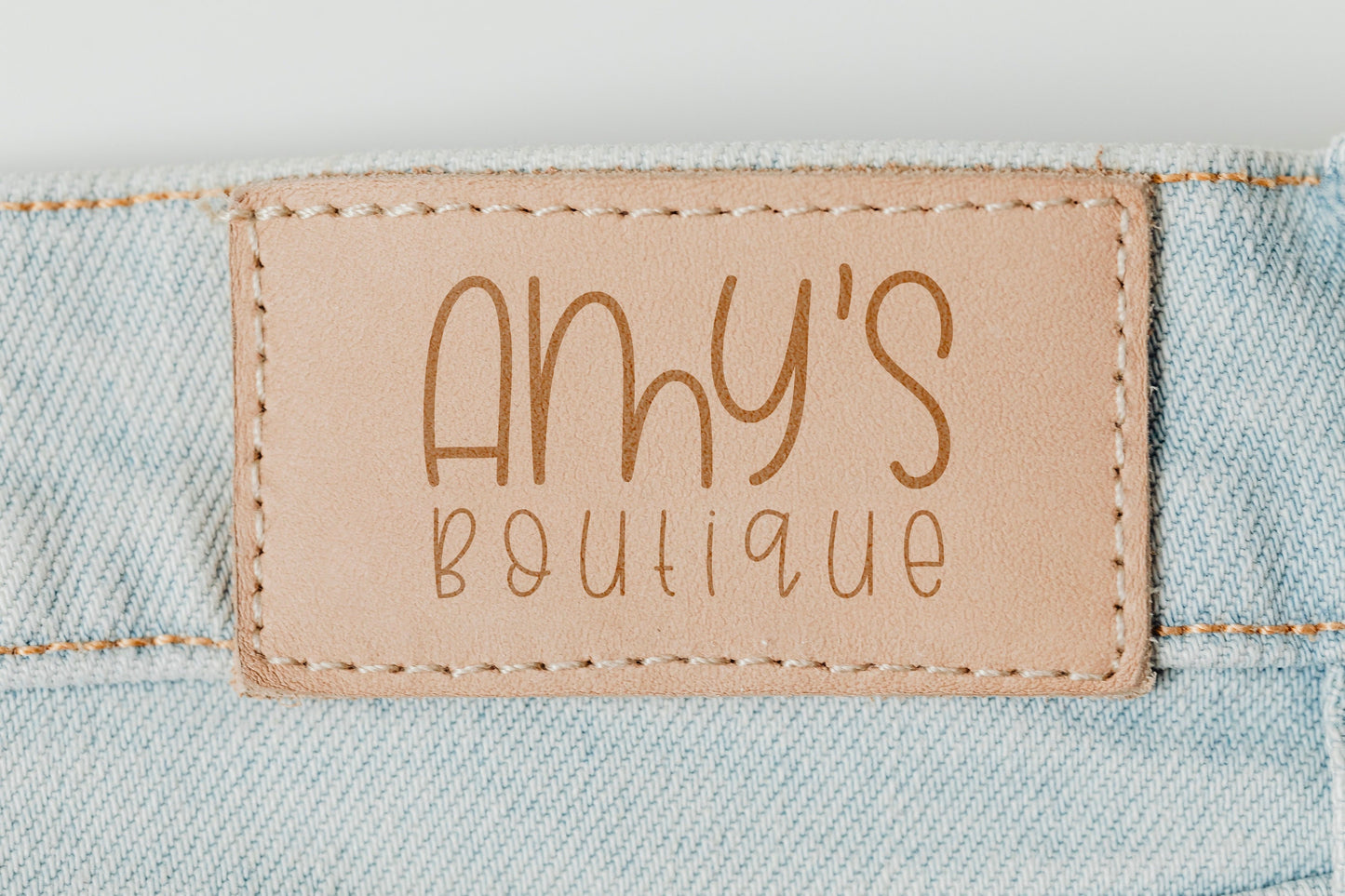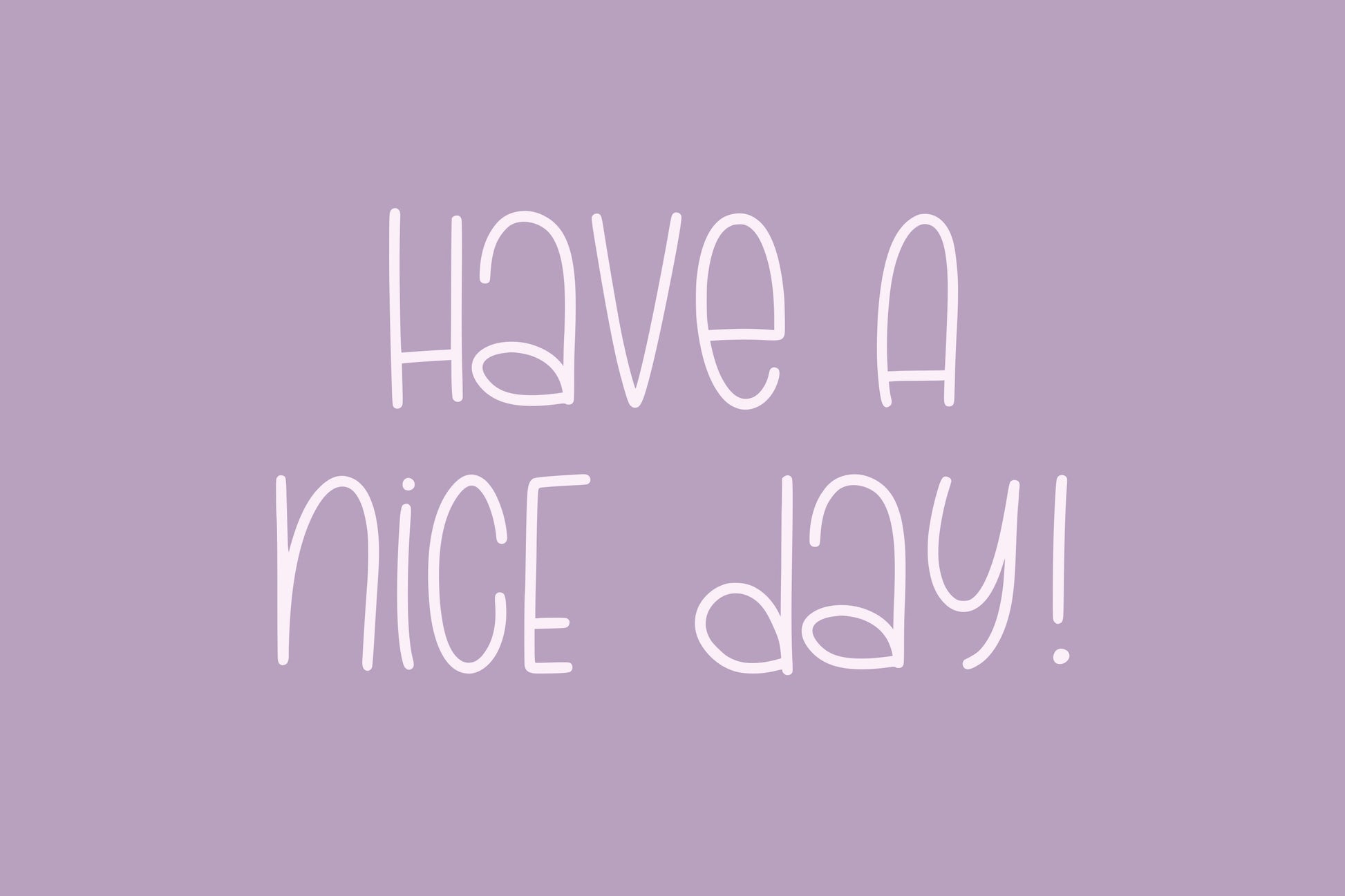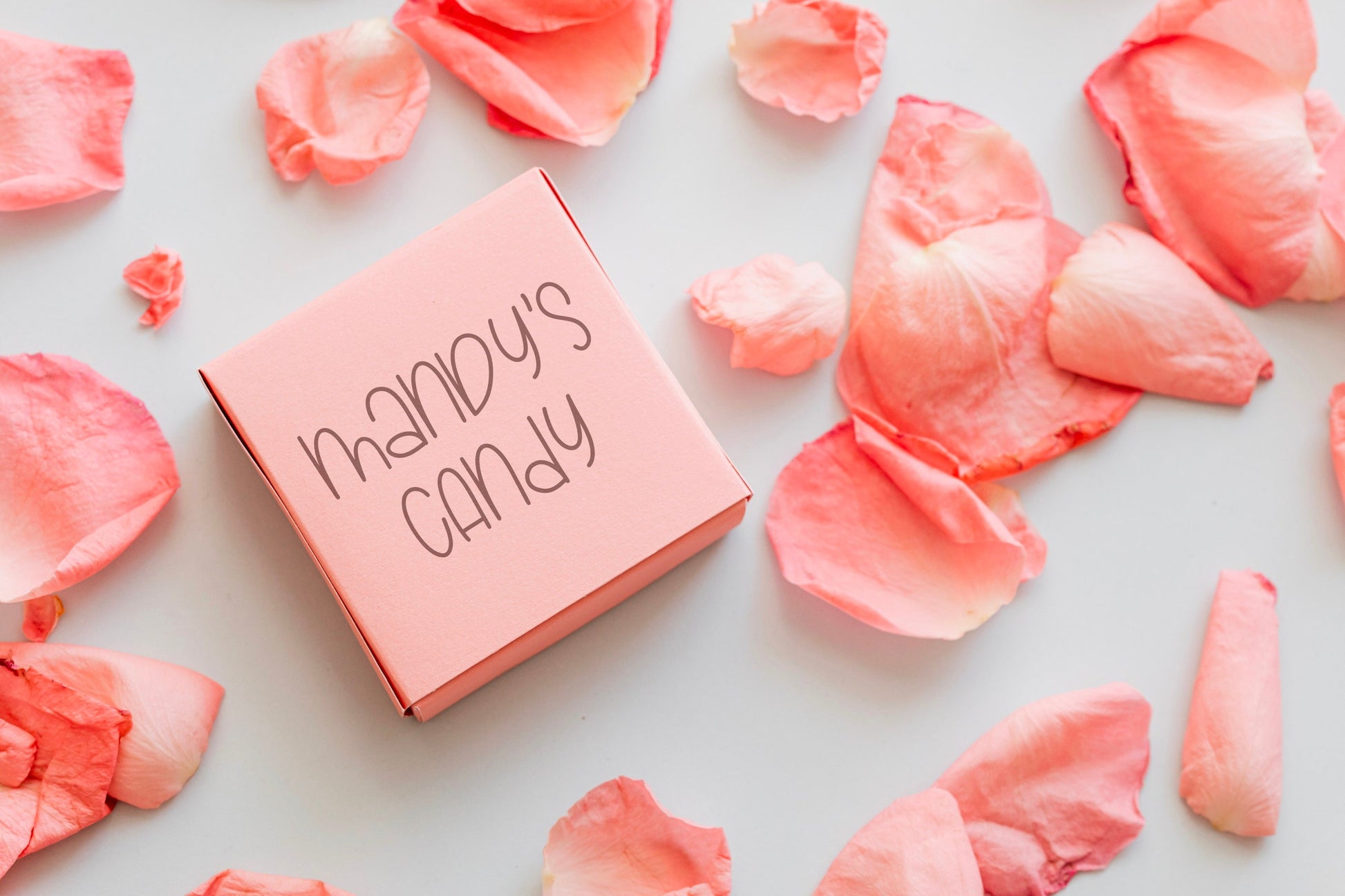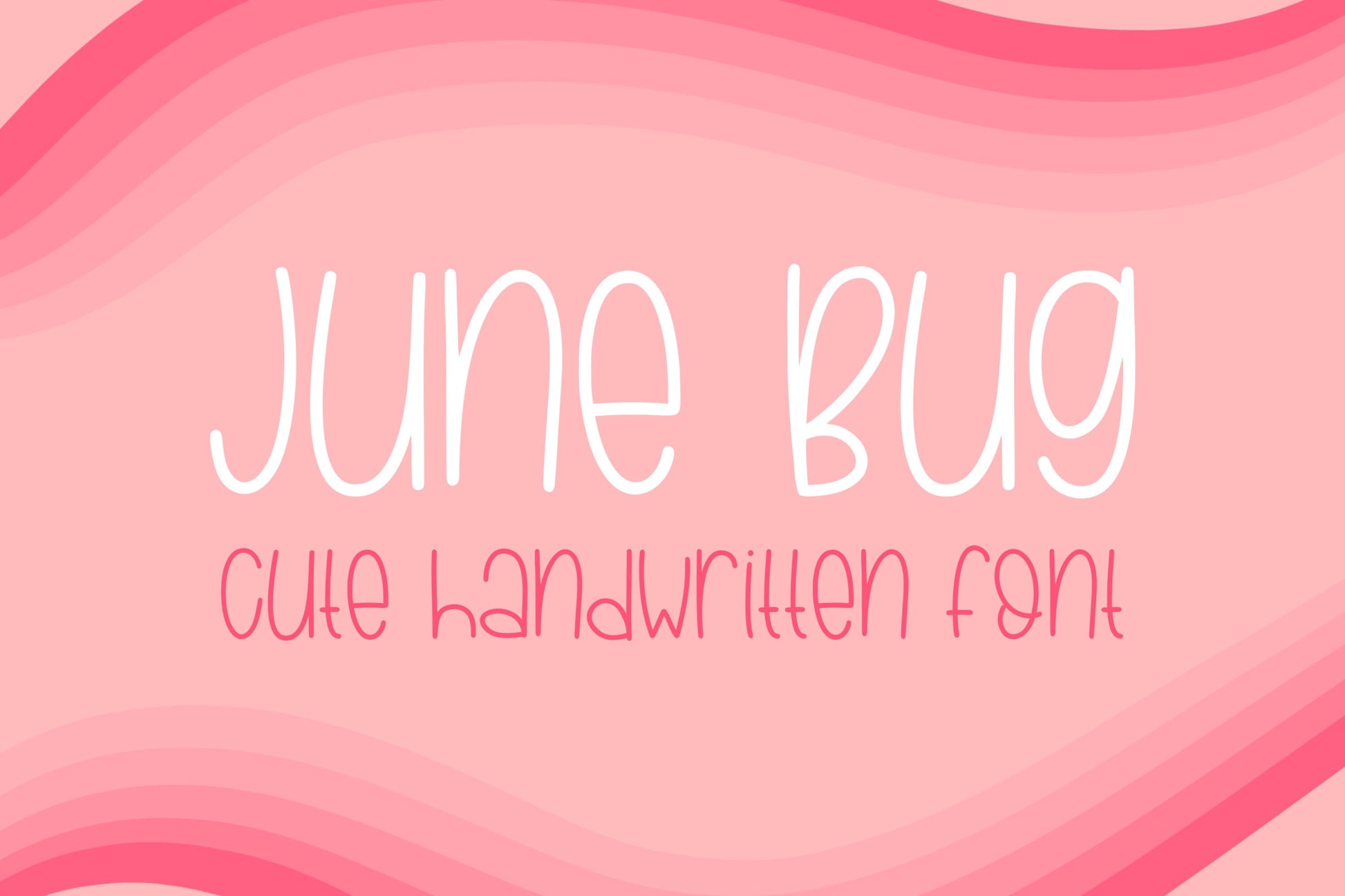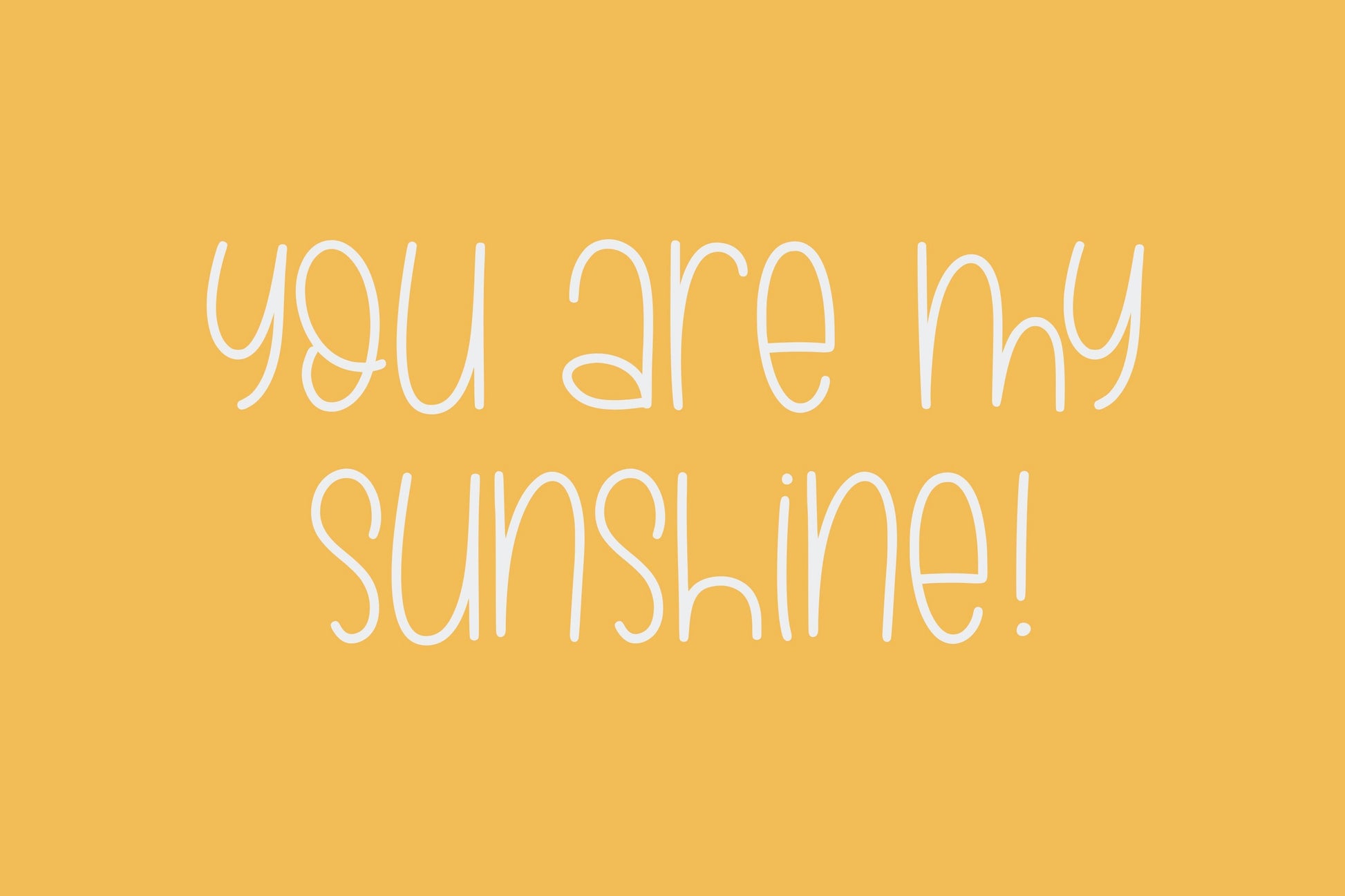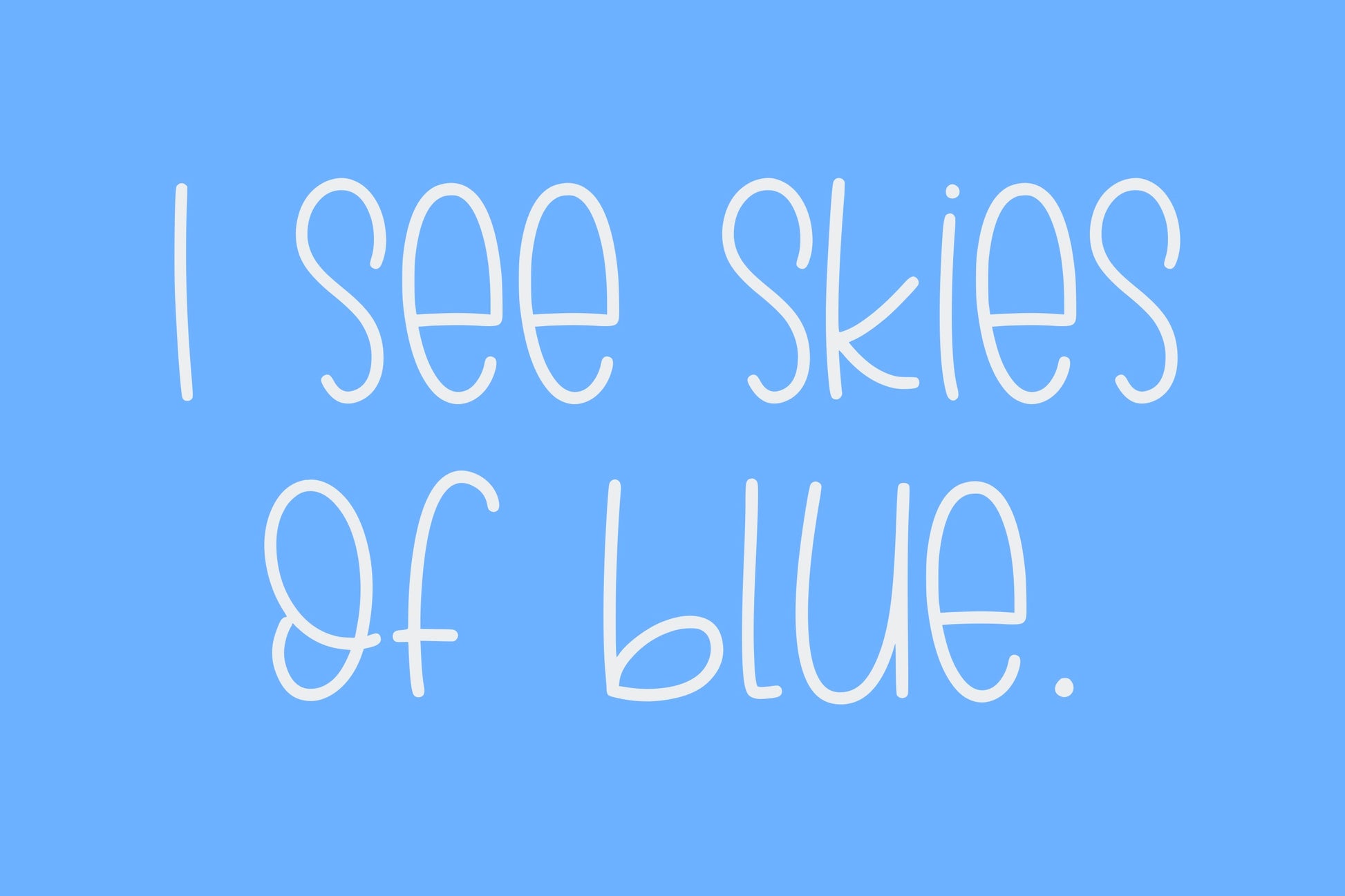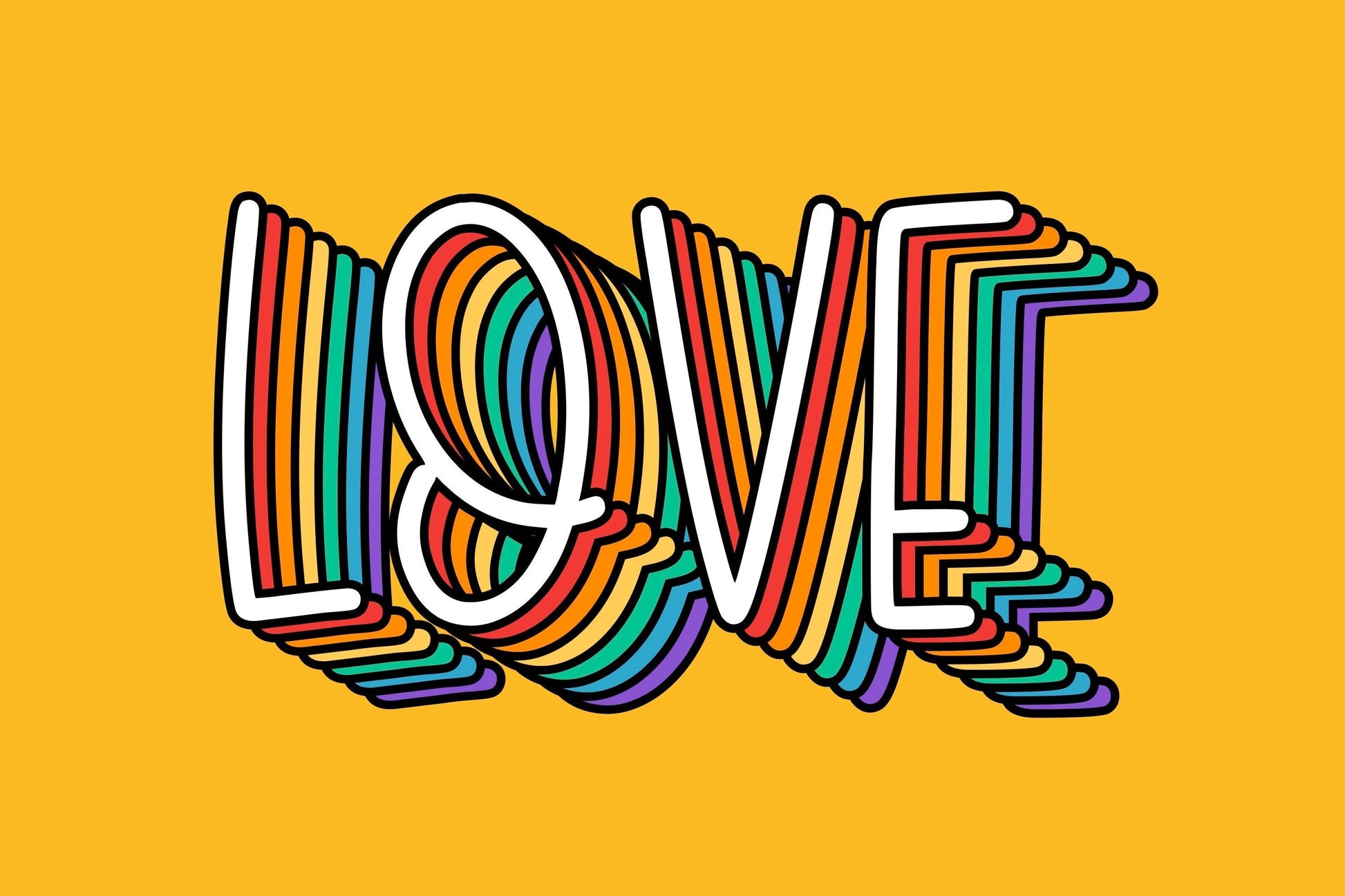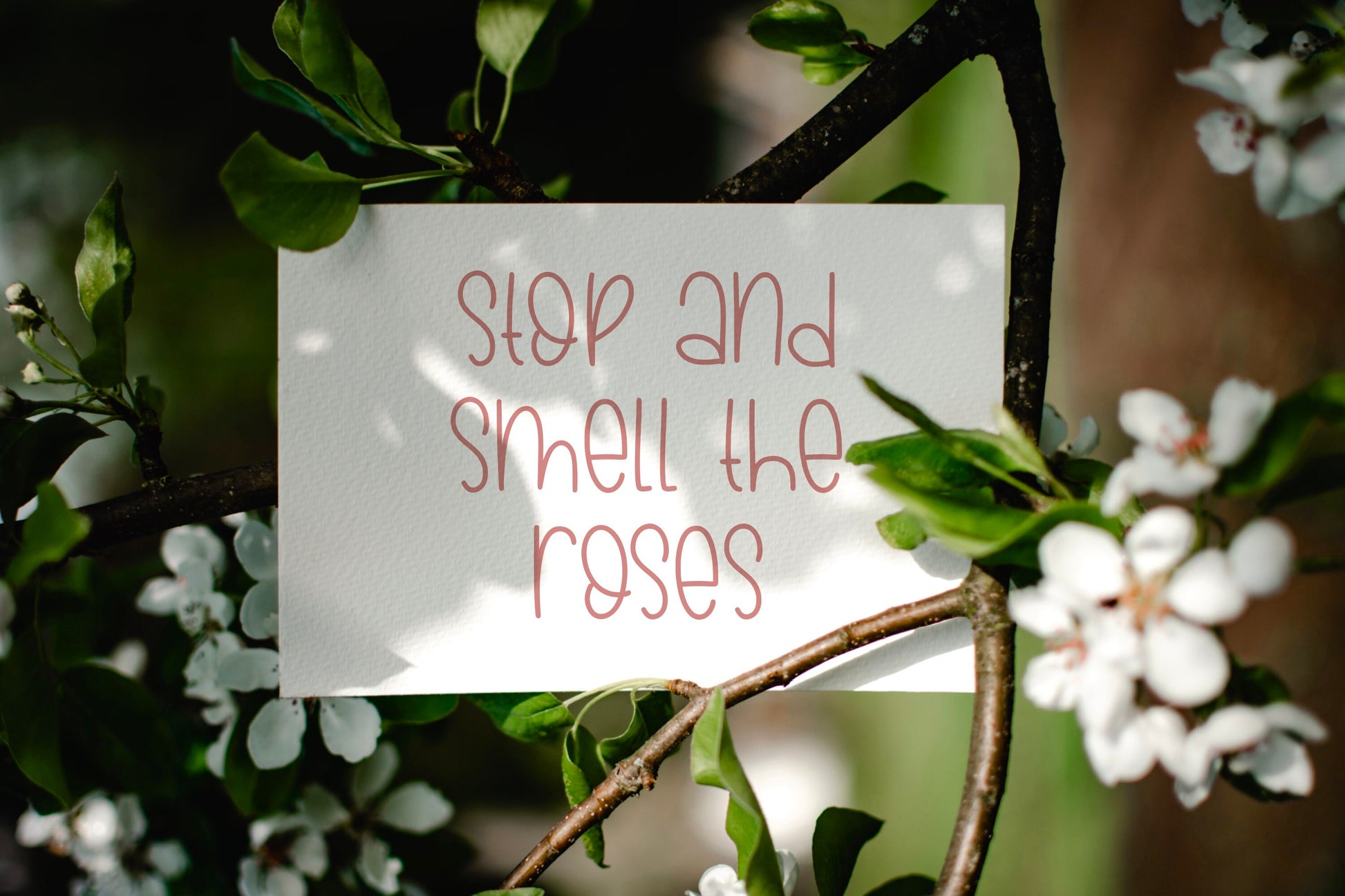
June Bug Cute Handwritten Font
This is my June Bug handwritten/hand drawn font. This unique font will add a fun, quirky, handmade touch to your design!